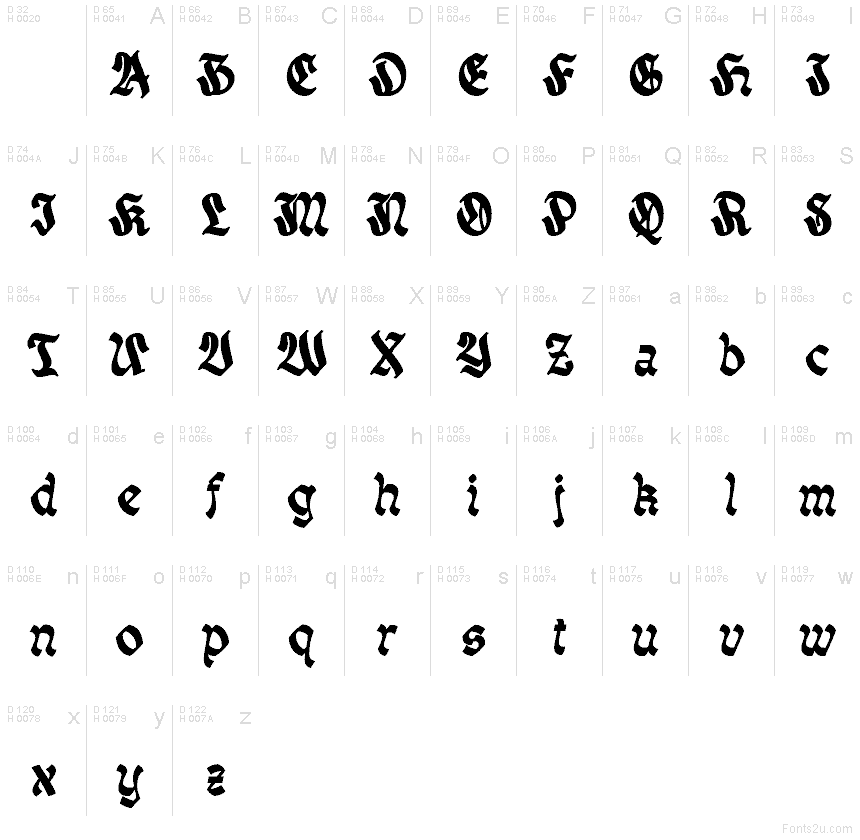
CS Monarch Regular Demo
CS Monarch font by Craft Supply Co. is a bold gothic font that beautifully embodies medieval and brush style influences. It features elaborate characters with an intriguing look founded in historical elegance, spooky feel, and gothic vibe achieving unprecedented unity. The modern mix of decorative flourishes and authentic style adds dimension and personality to this ornamental typography classic.
Use CS Monarch for tattoo design, music album covers, YouTube covers, poster designs, product packaging design, branding projects, clothes prints & patterns, advertising templates or headers & footers for blogs & websites among other graphic projects where you want to achieve an immediate visual impact!